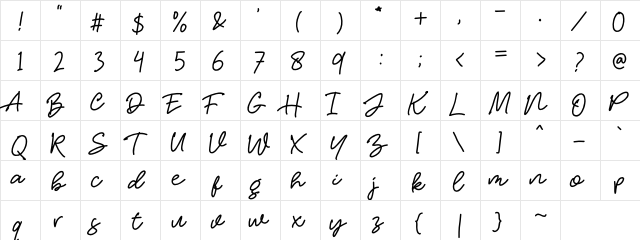
Hello Stranger Regular
| Foundry | Sarid Ezra |
| Designer | Sarid Ezra |
Design Context for Hello Stranger Typeface
Hello Stranger is a composed and adaptable typeface that performs quietly and consistently across a wide range of design contexts.